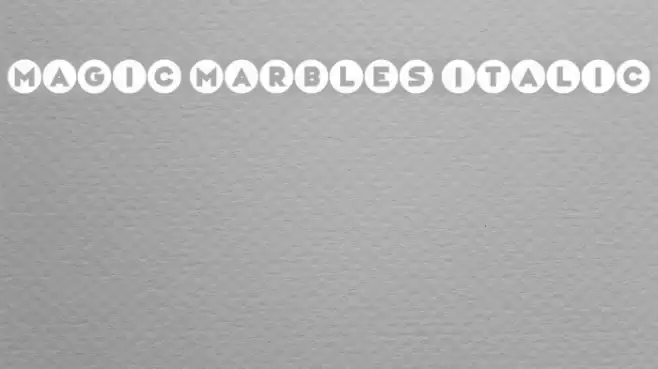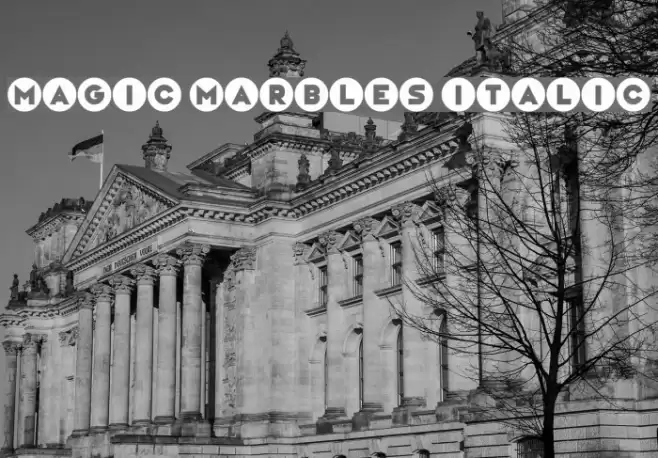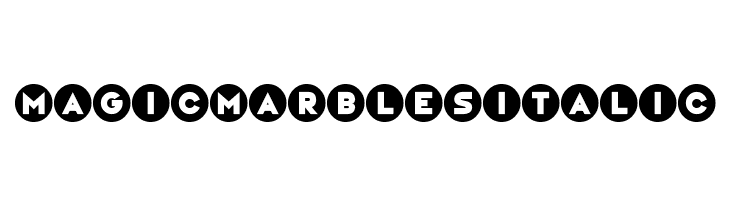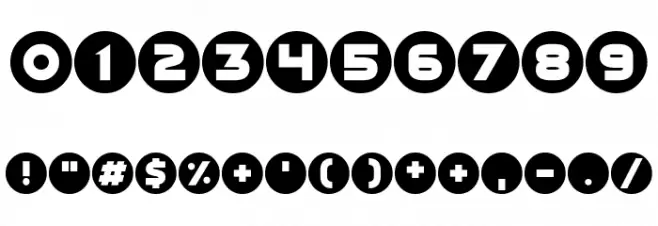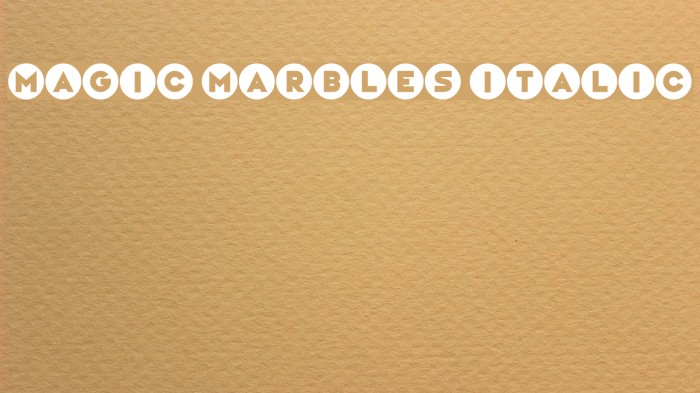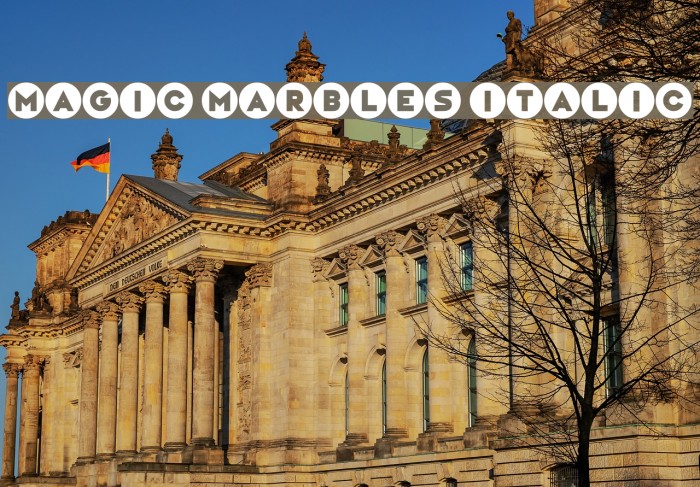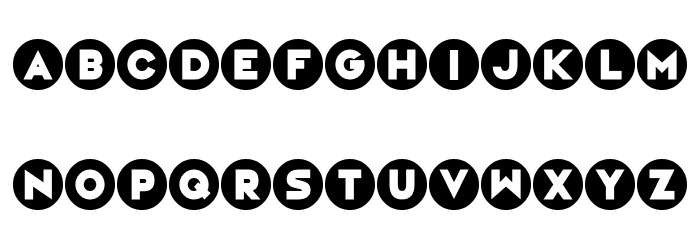
Magic Marbles Italic Font
Magic Marbles Italic Description
This font features bold, geometric letterforms enclosed within circular shapes, creating a playful and modern aesthetic. Each character is centered within a solid circle, providing a unique and cohesive look. The uppercase and lowercase letters maintain a consistent style, with clean lines and a strong presence. The numerals and special characters follow the same design principle, ensuring uniformity across all glyphs. This font's distinctive style makes it ideal for eye-catching designs where a bold statement is needed.
A bold, geometric font with characters enclosed in circles, offering a playful and modern look from Decorative fonts.
- Proposed Projects: Ideal for logo design, posters, children's books, and any project requiring a playful and bold aesthetic.